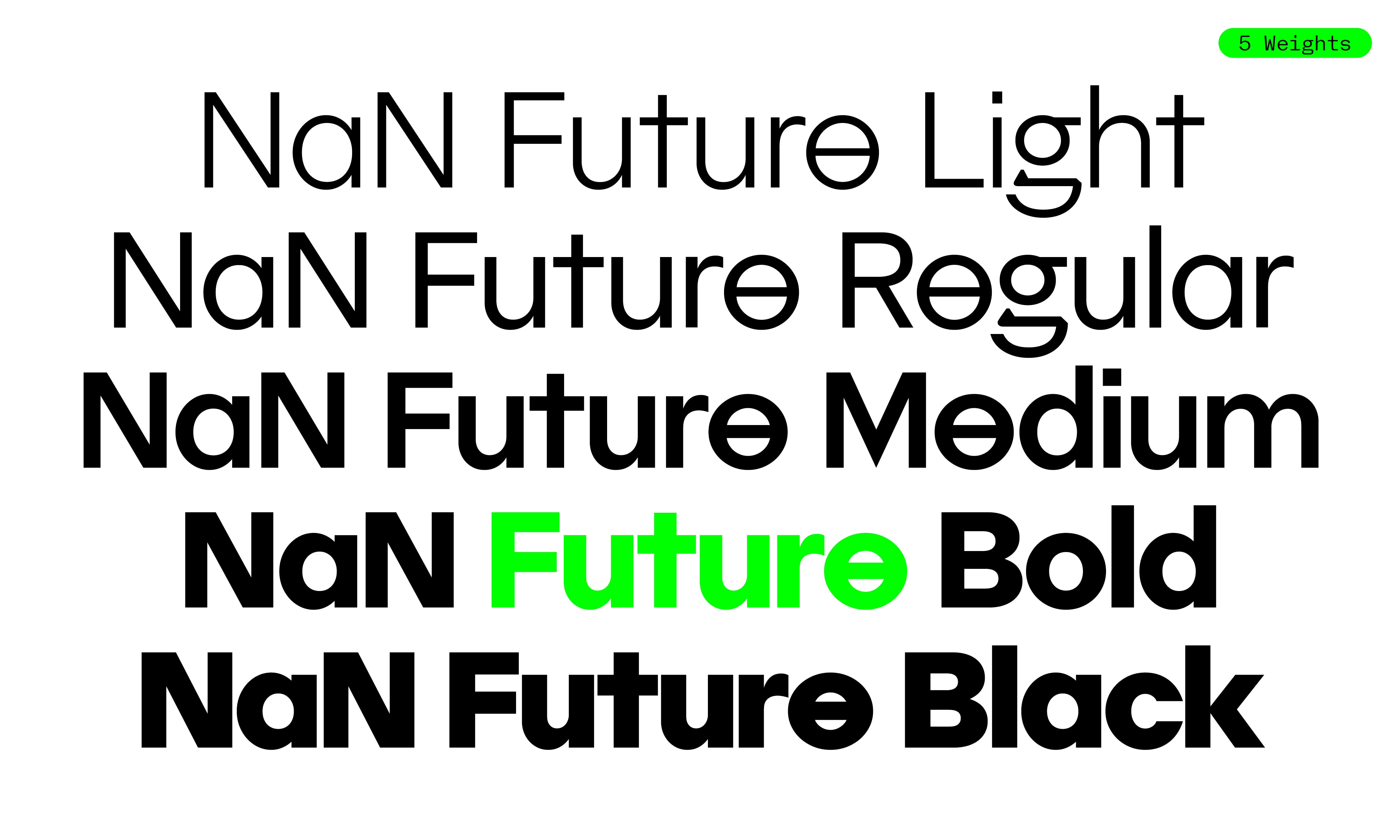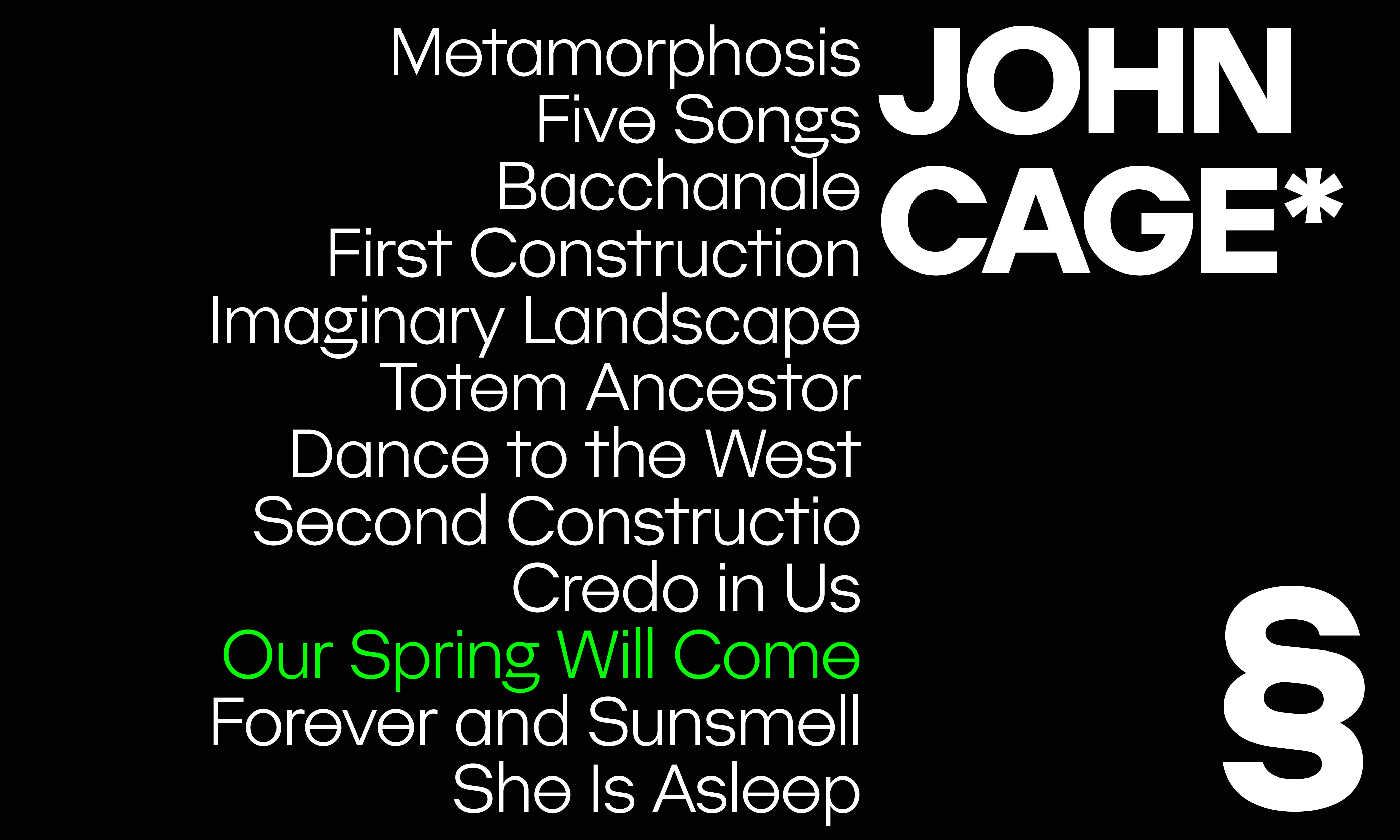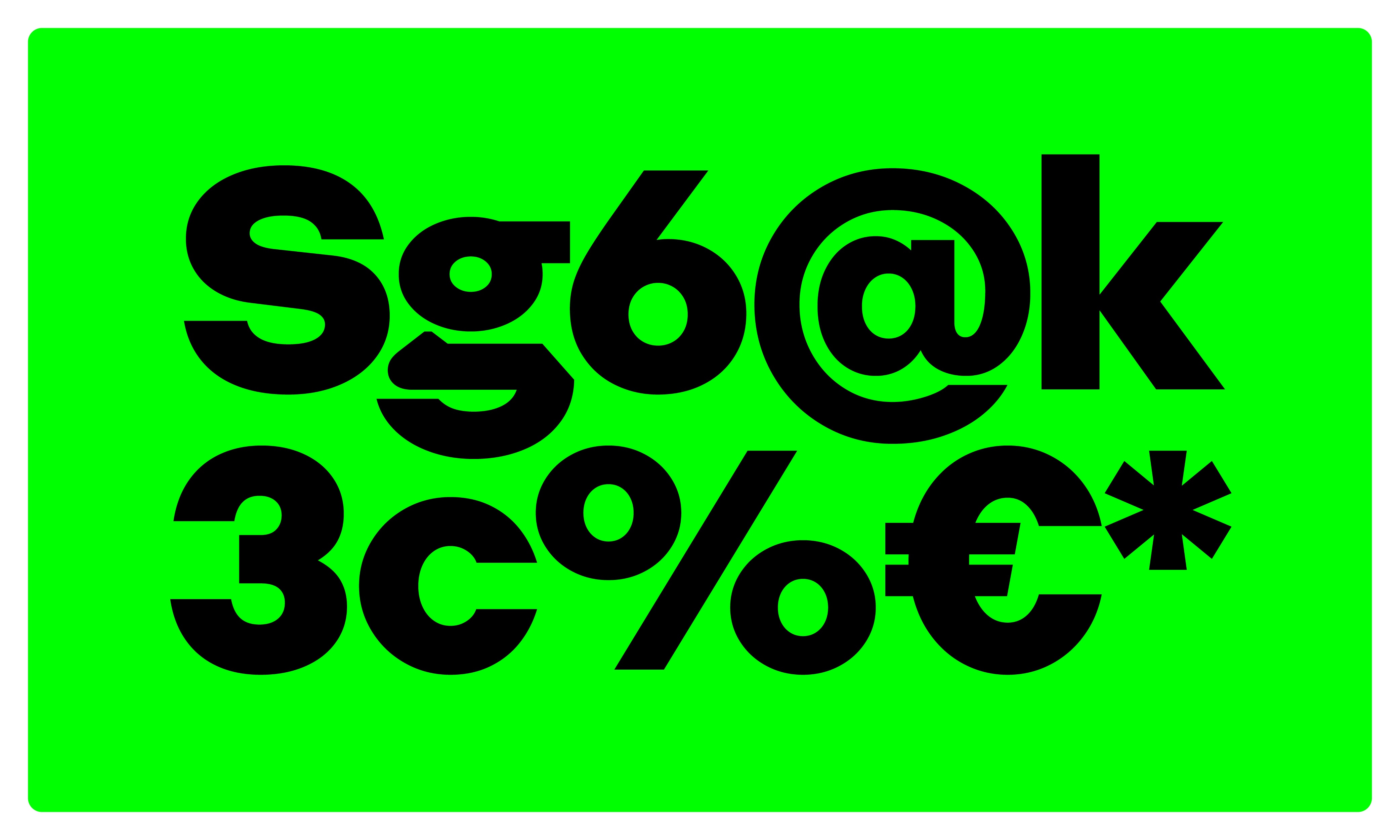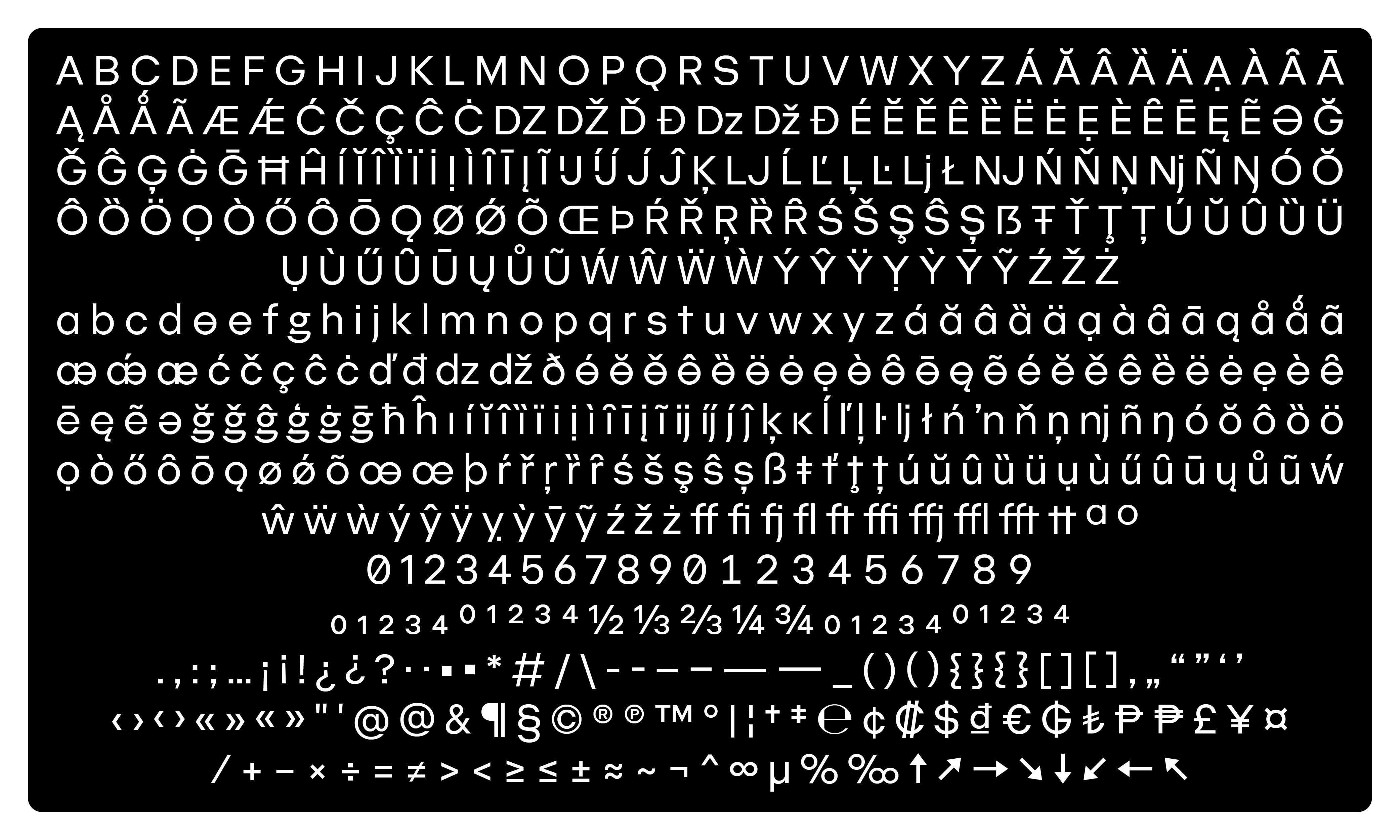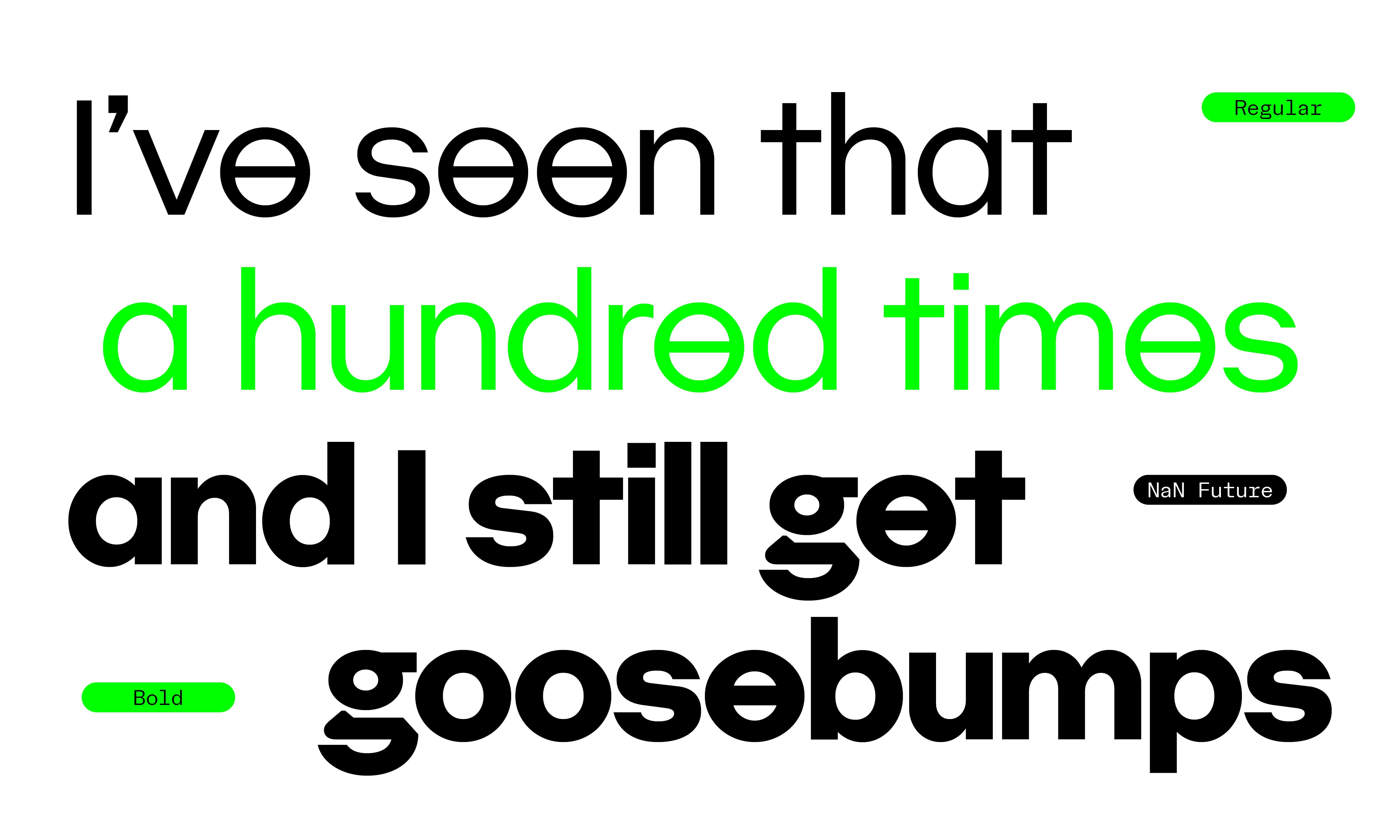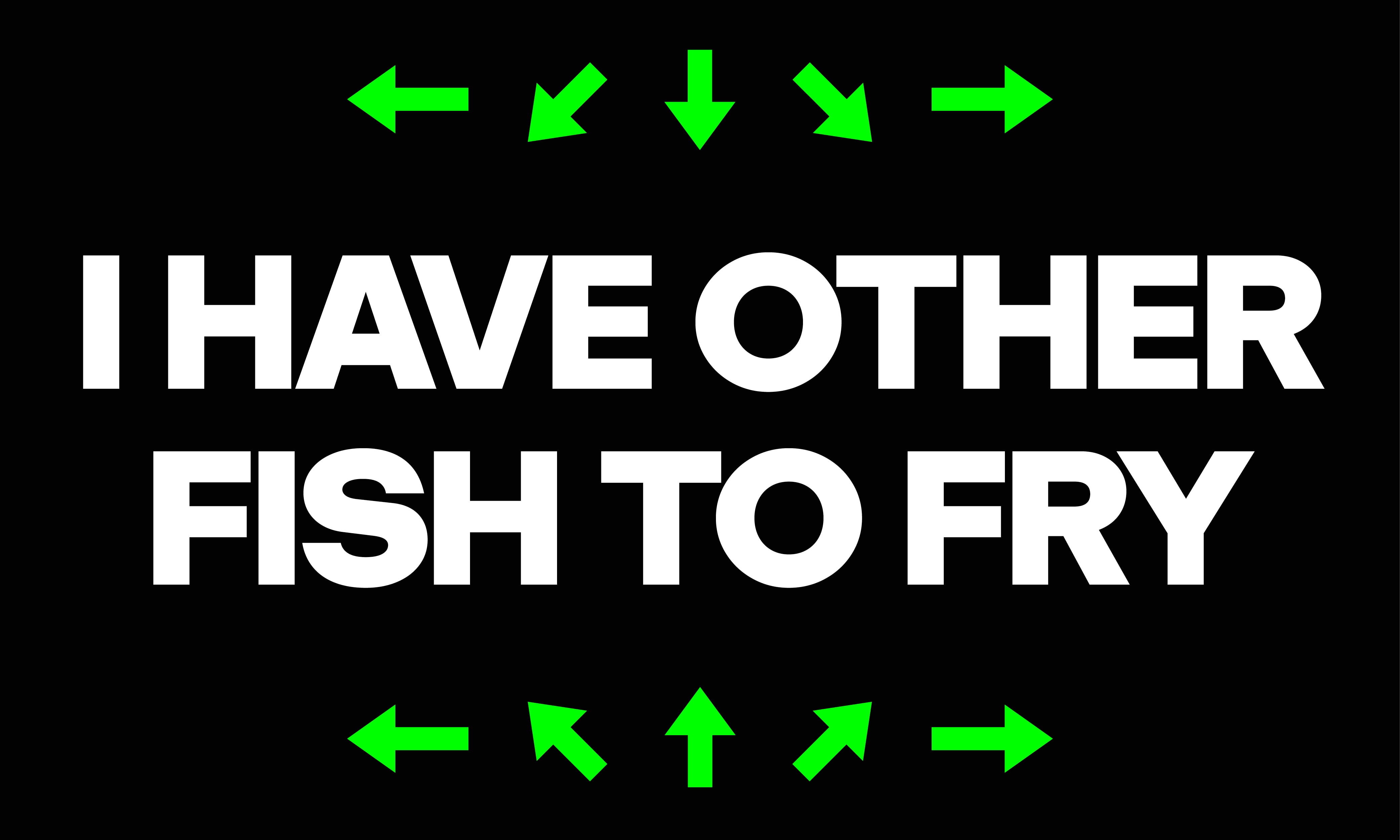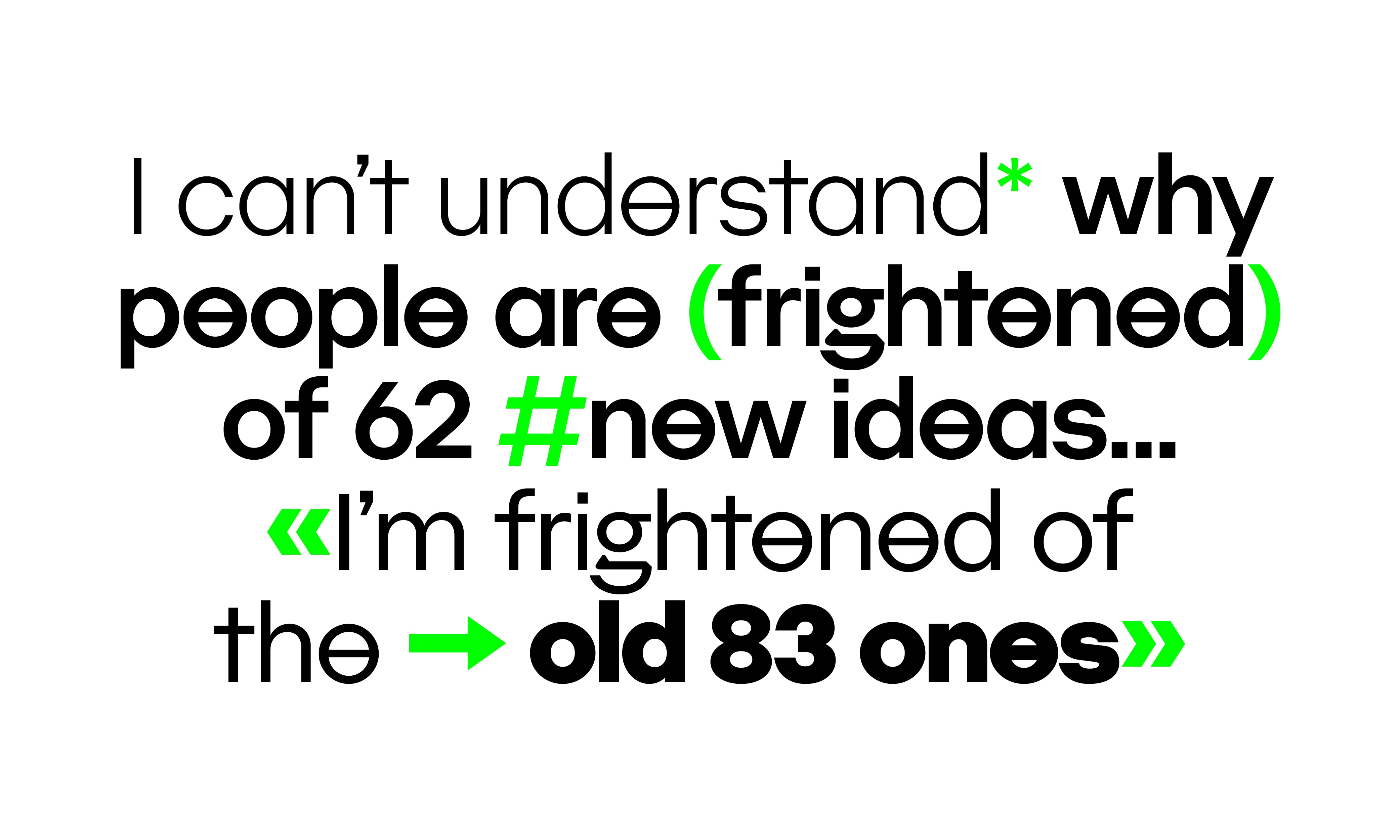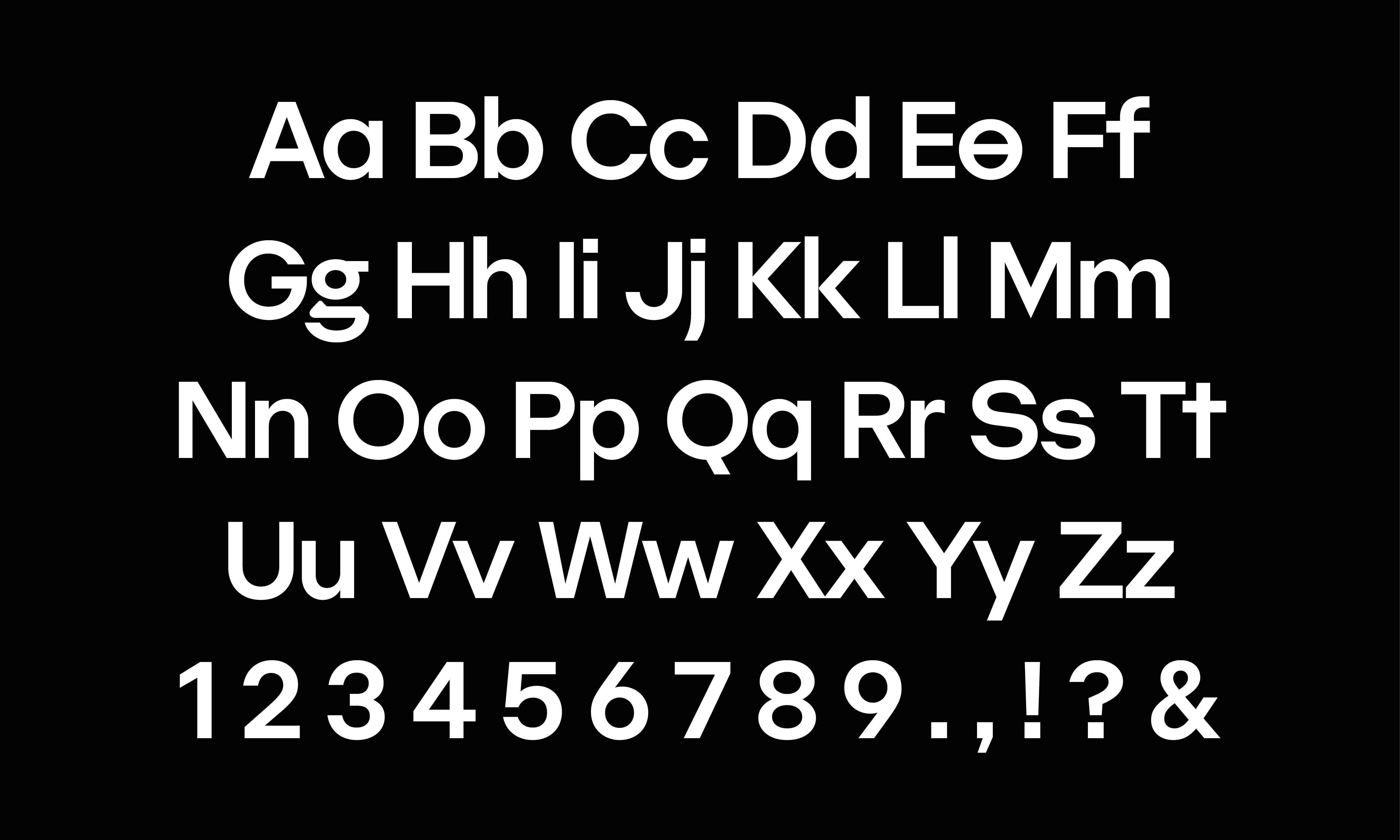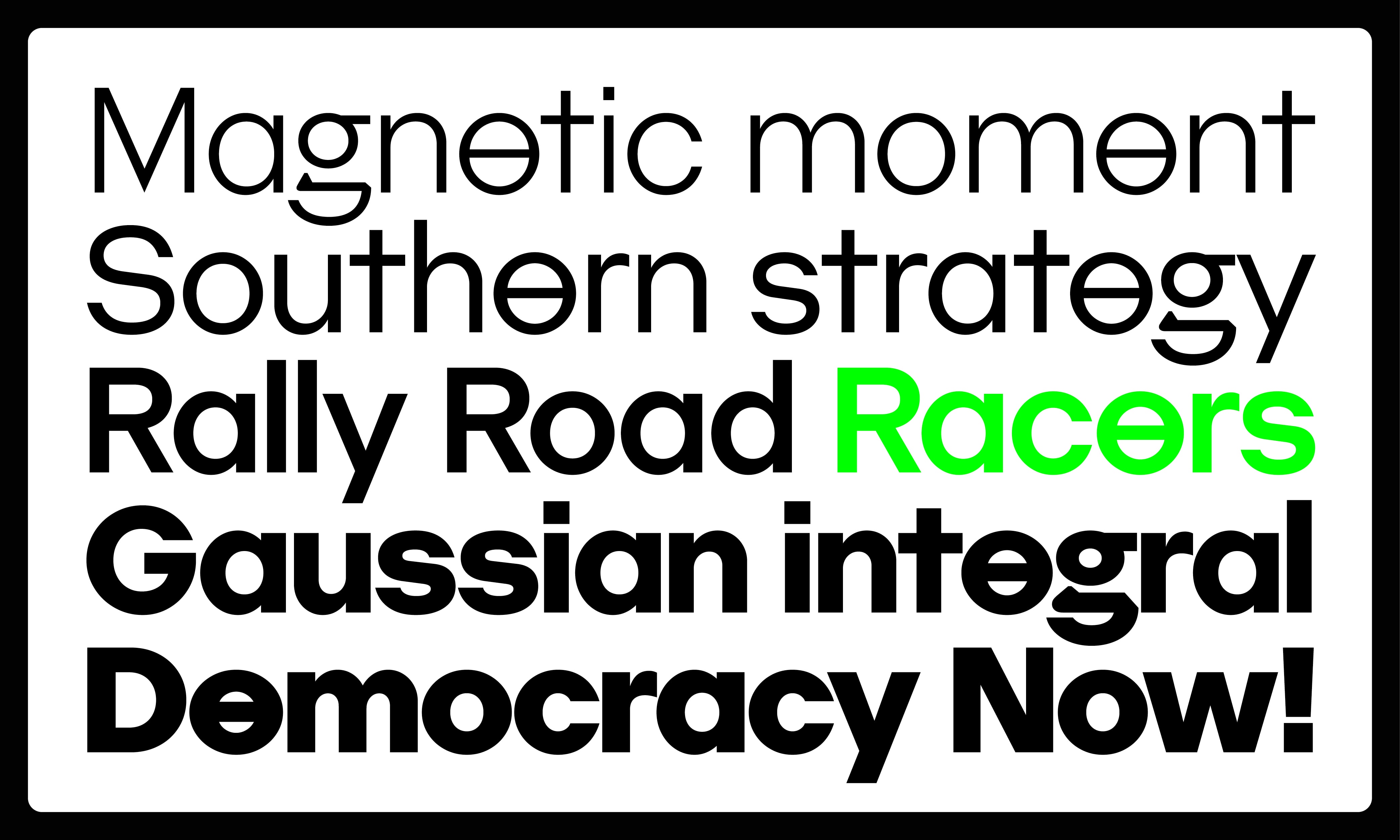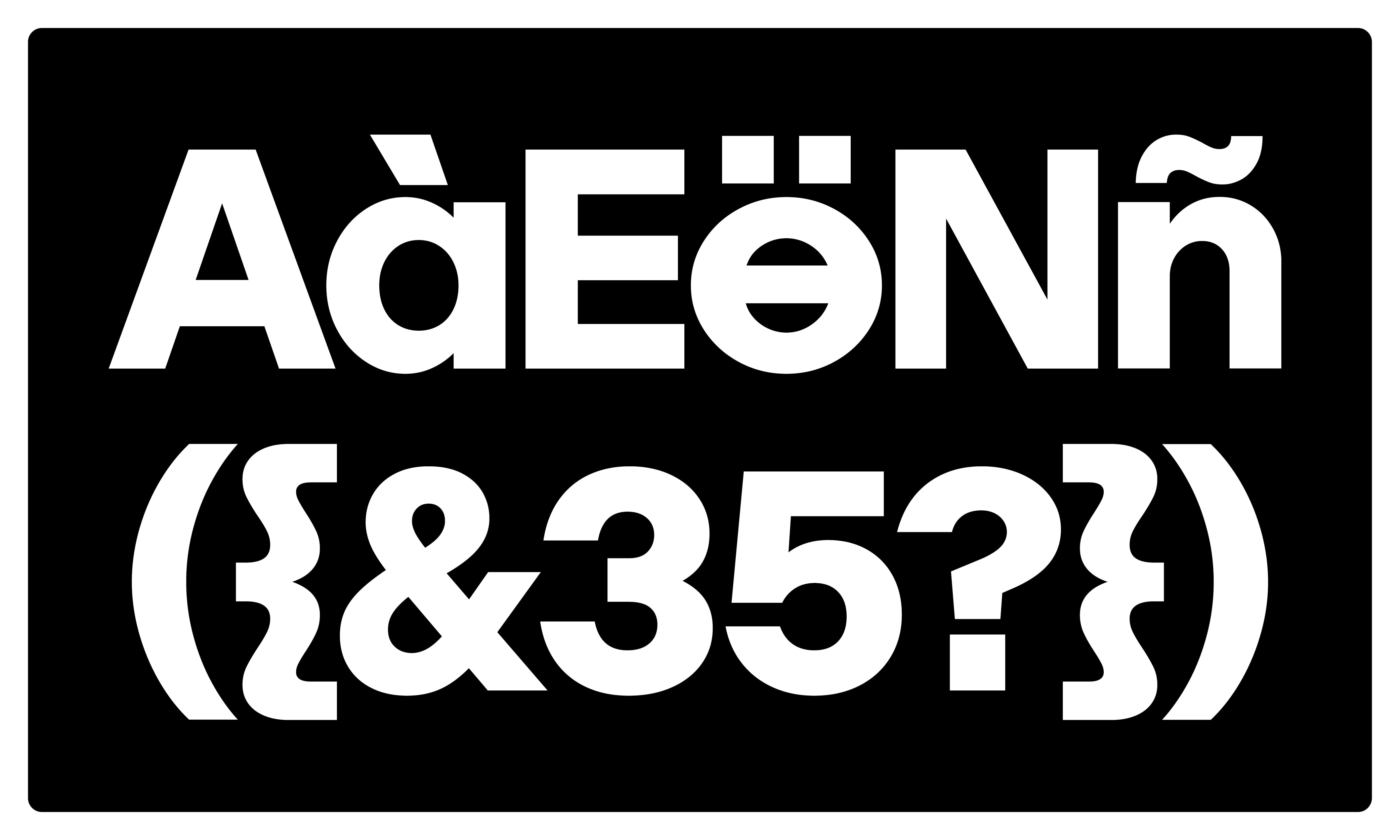
About NaN Future
NaN Future, the geometric sans which forgot to be boring. The distinctive /e and /g make you travel to a parallel universe where the techno-fascists disn’t skip design and history lessons.
Typeface: NaN Future
Designed by NaN
Selected Opentype Features
MoesFoes Alternate Open -e-